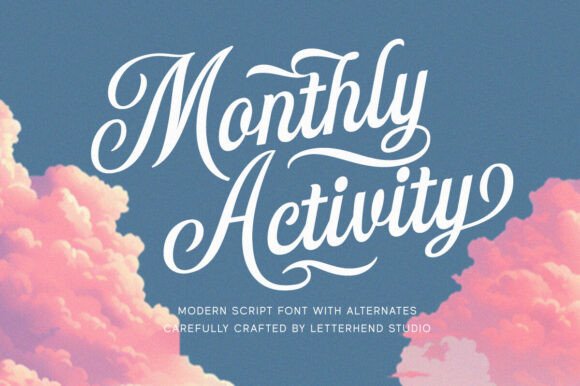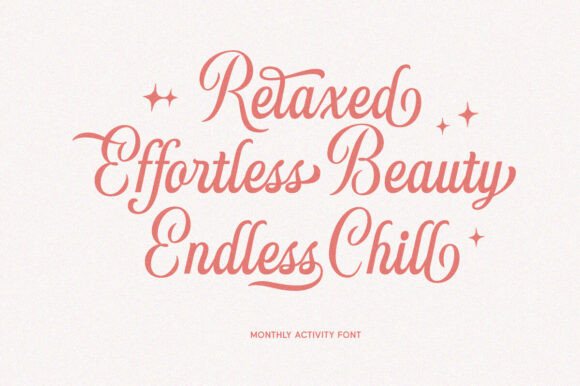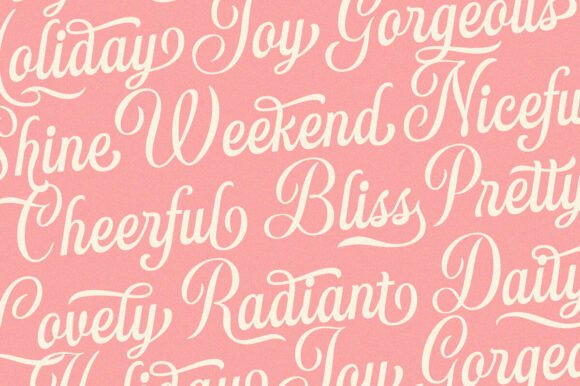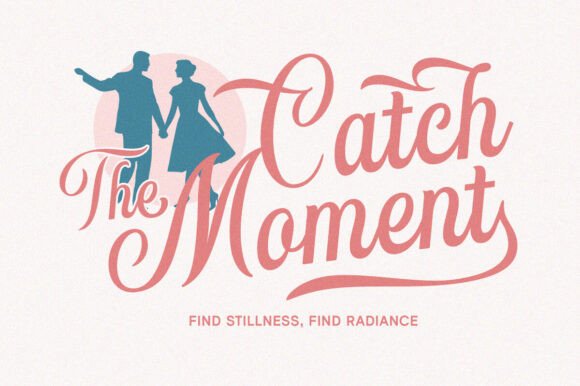
Monthly Activity Font: Elegant Script for Feminine Branding
About the Monthly Activity Font
Experience the unique personality of Monthly Activity Font, a font designed for impact. Monthly Activity is a modern script font that blends classic elegance with a contemporary flair. Designed with smooth strokes and flowing letterforms, it includes various alternate characters to give your design a dynamic and expressive touch. Perfect for branding, packaging, invitations, and social media posts that need a feminine, elegant, and approachable look.
Monthly Activity excels in applications requiring a touch of refined elegance, such as logos, short headlines, and invitations. Its flowing forms work beautifully on packaging for high-end products or boutique brands. However, its script nature makes it less suitable for body text or UI elements where readability is paramount; extended use will hinder legibility.
Consider pairing Monthly Activity with a clean sans-serif like Montserrat for a balanced contrast, or a geometric sans-serif like Futura for a more modern, sophisticated feel. For a warmer aesthetic, a classic serif such as Garamond could provide an excellent counterpoint.
The font projects a sophisticated yet approachable personality; it’s elegant without being overly formal, making it ideal for brands seeking a feminine and friendly image, but also suitable for projects that need a touch of understated luxury.